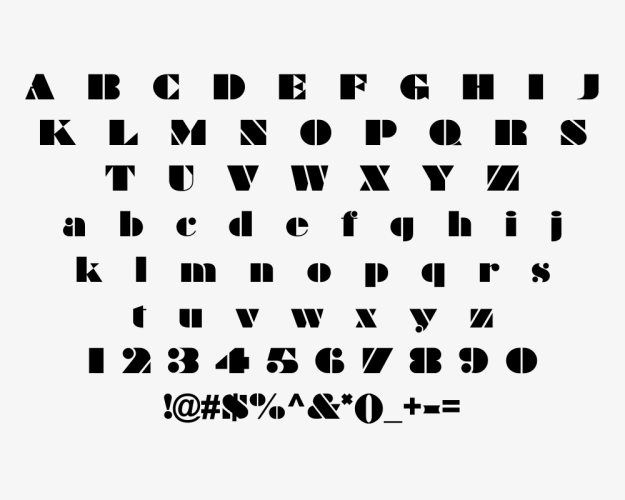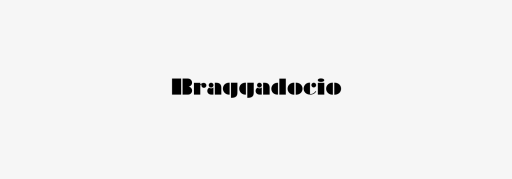
Braggadocio Font
Braggadocio is a bold stencil font with powerful presence. Moreover, it brings Art Deco style to modern designs. W. A. Woolley created this font in 1930. Additionally, Monotype Corporation released it to the public.
This font features wide geometric letters and strong shapes. Furthermore, the stencil design makes it stand out instantly. It works best for headlines and short phrases. Therefore, designers use it when they need bold impact.
You can use Braggadocio for sports graphics and event posters. In addition, it looks great on product labels and logos. The heavy weight grabs attention right away. Consequently, it became popular for bold branding projects.
This typeface combines sans serif and modern design elements. However, it keeps a simple and clear look. The open letter shapes help with readability at large sizes. As a result, it works well for confident statements.
Braggadocio Font is built for size: event posters, hero headlines and billboard-style layouts.
High contrast display type like Braggadocio Font reads instantly in thumbnails and motion graphics.
What is Braggadocio Font good for?